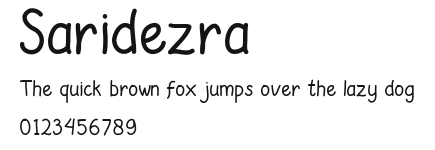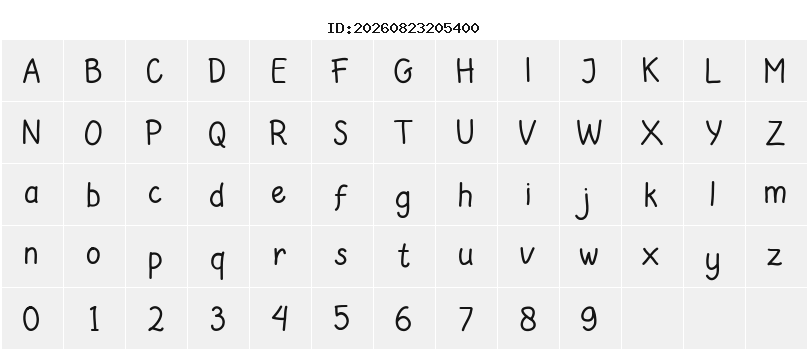
Saridezra Preview
• Font Name: Saridezra
• Font Style: Hand
• Full Font Name: Saridezra Hand
• PostScript Name: Saridezra-Hand
About Saridezra.ttf
Saridezra.ttf is a modern, elegant sans-serif font designed for ultimate readability and visual harmony. Perfect for branding, headlines, web design, and print materials.